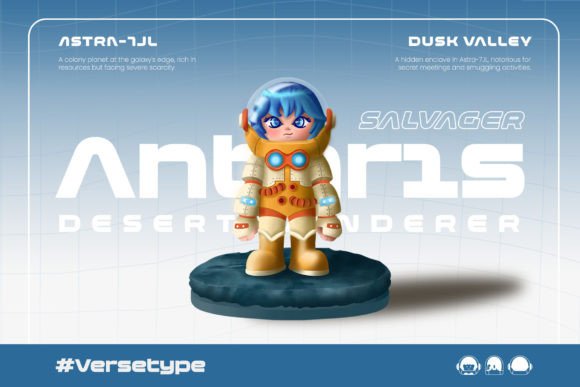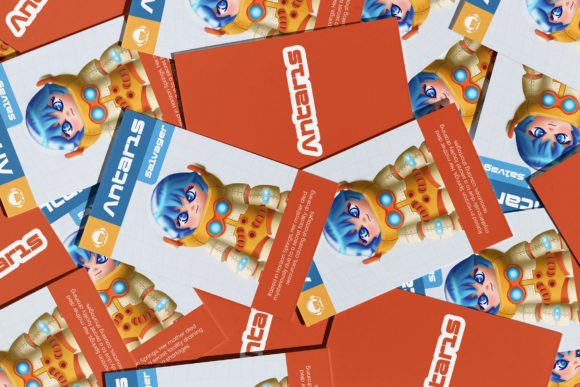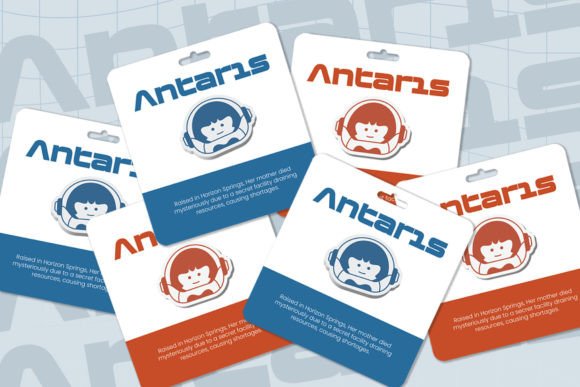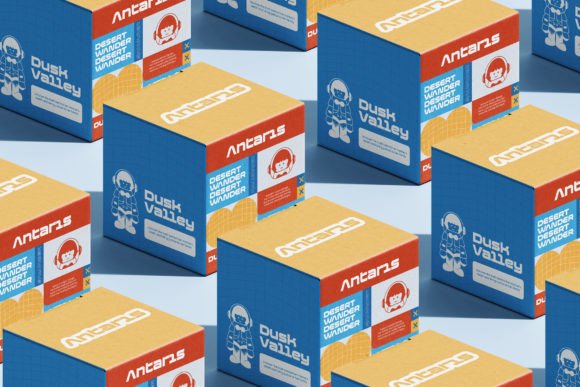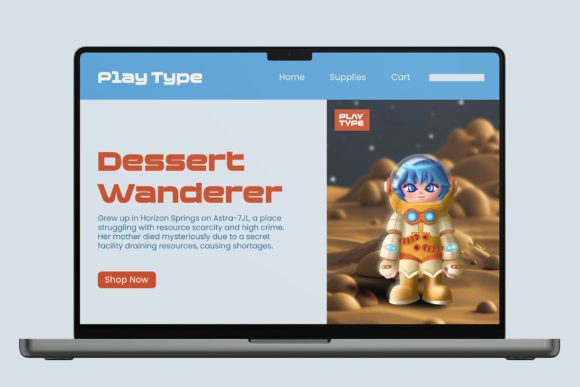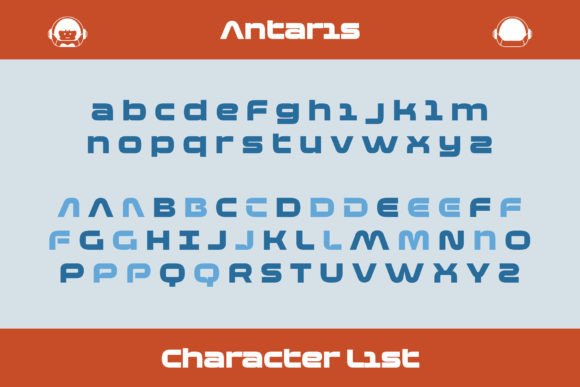
Introducing Antaris: The Ultimate Bold and Extended Font for Modern Designs
In the world of typography, fonts play a crucial role in conveying messages, expressing emotions, and creating a lasting impression. For designers, crafters, and marketers, finding the perfect font can be a daunting task. However, if you’re looking for a bold, extended, and techno-futuristic font that can elevate your designs, look no further than Antaris. In this article, we’ll explore the features, benefits, and uses of Antaris, the ultimate font for modern designs.
What is Antaris Font?
Antaris is a bold and extended font that exudes a techno-futuristic flair. Its unique design combines sharp edges with exceptional readability, making it perfect for a wide range of applications, including branding, posters, and display text. With Antaris, you can add a modern and striking look to your designs, ensuring your message is clear, impactful, and memorable.
Key Features of Antaris Font
- Bold and Extended: Antaris is designed to make a statement with its bold and extended letterforms. Its increased width and height make it perfect for headlines, titles, and display text.
- Techno-Futuristic Flair: Antaris boasts a unique techno-futuristic design that adds a touch of innovation and modernity to your designs.
- Sharp Edges: The font’s sharp edges provide a crisp and clean look, ensuring your text is easy to read and understand.
- High Readability: Despite its bold design, Antaris maintains exceptional readability, making it perfect for conveying complex messages and ideas.
Uses of Antaris Font
Antaris is a versatile font that can be used in various design applications, including:
- Branding: Use Antaris to create bold and memorable brand identities that leave a lasting impression.
- Posters: Add a striking touch to your posters with Antaris, making your message stand out and grab attention.
- Display Text: Use Antaris for display text, such as headings, titles, and captions, to add a modern and techno-futuristic flair.
- Advertising: Antaris is perfect for advertising materials, such as billboards, flyers, and brochures, where bold and eye-catching text is essential.
Benefits of Using Antaris Font
By incorporating Antaris into your designs, you can enjoy several benefits, including:
- Unique and Memorable: Antaris helps you create unique and memorable designs that stand out from the crowd.
- Improved Readability: The font’s exceptional readability ensures your message is conveyed clearly and effectively.
- Increased Engagement: Antaris’s bold and striking design can increase engagement and capture the attention of your audience.
- Versatility: Antaris can be used in various design applications, making it a valuable addition to your font library.
In conclusion, Antaris is a bold and extended font that offers a unique techno-futuristic flair, perfect for modern designs. Its sharp edges, exceptional readability, and versatility make it an excellent choice for designers, crafters, and marketers. Whether you’re looking to create bold brand identities, striking posters, or eye-catching display text, Antaris is the ultimate font to elevate your designs. With Antaris, you can add a modern and striking look to your designs, ensuring your message is clear, impactful, and memorable.